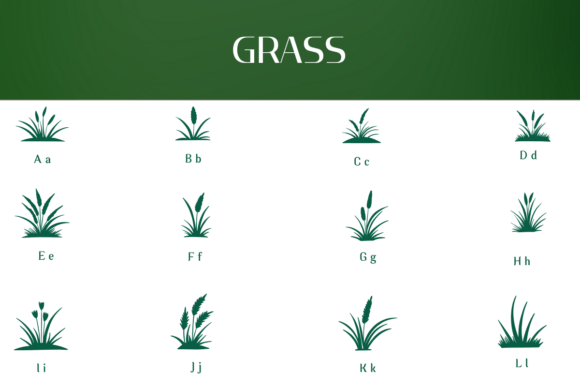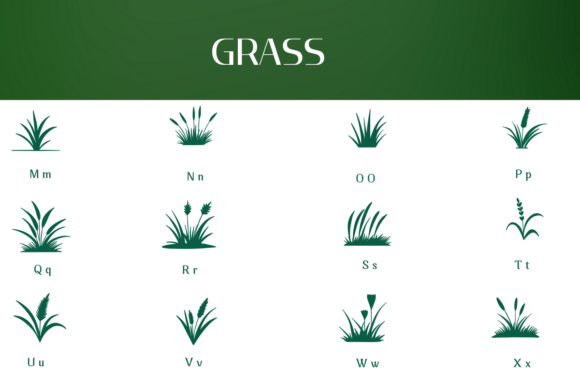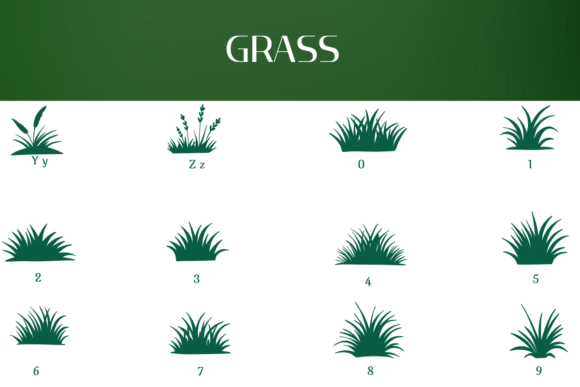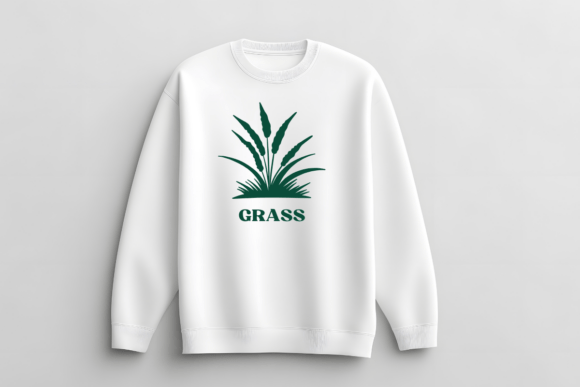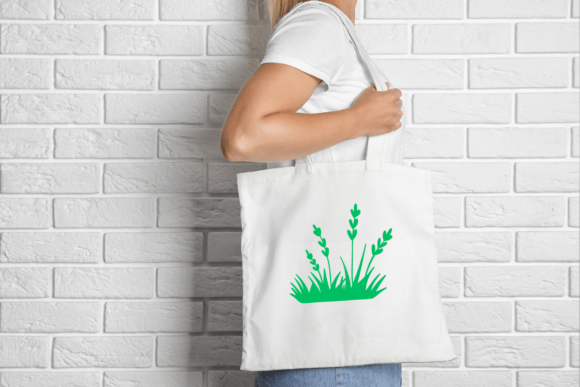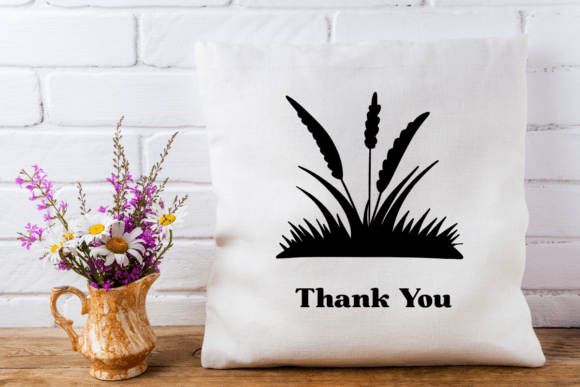
Grass Font: Add a Touch of Whimsy to Your Designs
Are you looking for a font that can add a playful and creative twist to your designs? Look no further than the Grass Font! This fun and cute dingbats font is perfect for designers and crafters who want to bring a touch of whimsy to their projects. In this article, we’ll explore the features and benefits of the Grass Font, and show you how to incorporate it into your creative workflow.
What is Grass Font?
Grass Font is a unique dingbats font that features adorable grass-inspired icons and symbols. The font includes a wide range of characters, from simple grass blades to more complex illustrations of flowers, leaves, and other natural elements. With its playful and charming design, Grass Font is perfect for adding a personal touch to your designs.
Key Features of Grass Font
- Unique and playful design: Grass Font features a one-of-a-kind design that’s sure to stand out in any project.
- Wide range of characters: The font includes a large set of characters, including grass blades, flowers, leaves, and more.
- Easily customizable: With its dingbats design, Grass Font can be easily customized to fit your project’s color scheme and style.
- Perfect for crafters and designers: Whether you’re a professional designer or a crafter, Grass Font is a great addition to your creative toolkit.
Benefits of Using Grass Font
So why should you use Grass Font in your designs? Here are just a few benefits:
- Adds a personal touch: Grass Font’s playful design adds a personal touch to your projects, making them more engaging and memorable.
- Perfect for spring and summer projects: With its grass and flower-inspired design, Grass Font is perfect for spring and summer-themed projects.
- Versatile: Grass Font can be used in a wide range of projects, from greeting cards and invitations to posters and social media graphics.
- Easy to use: With its simple and intuitive design, Grass Font is easy to use, even for those with limited design experience.
How to Use Grass Font in Your Designs